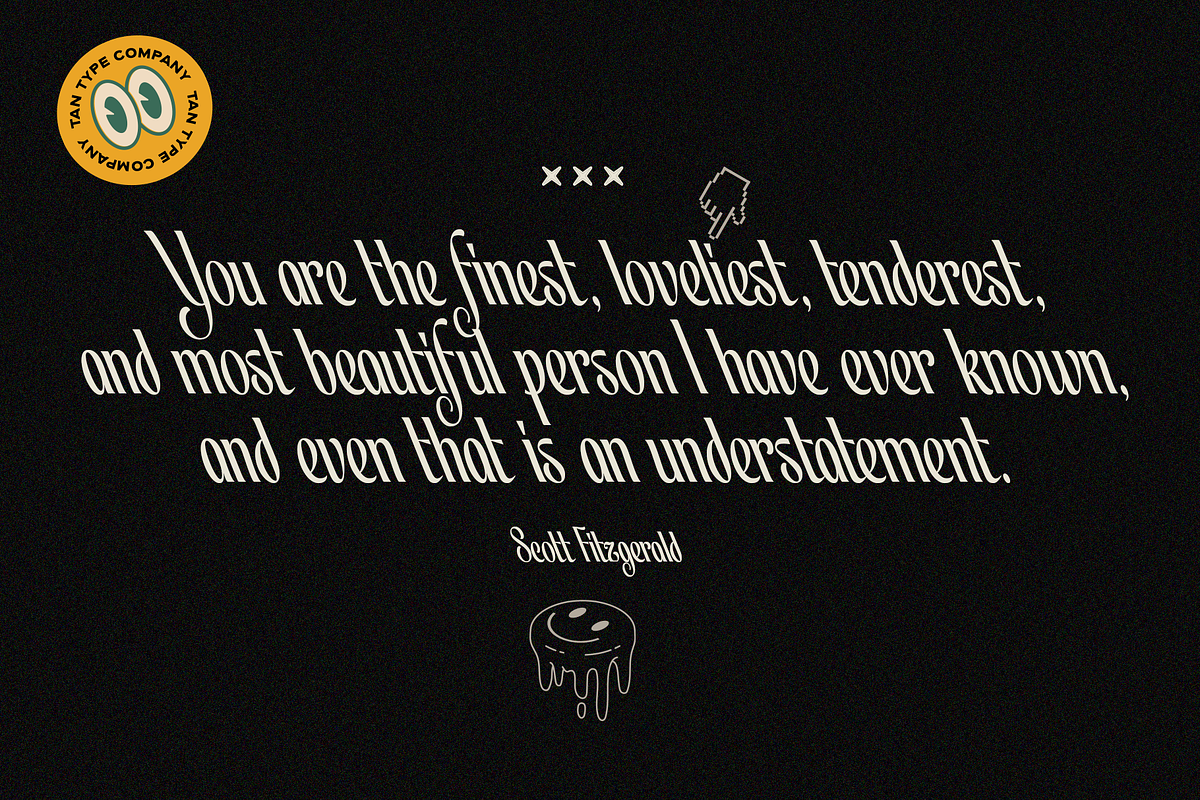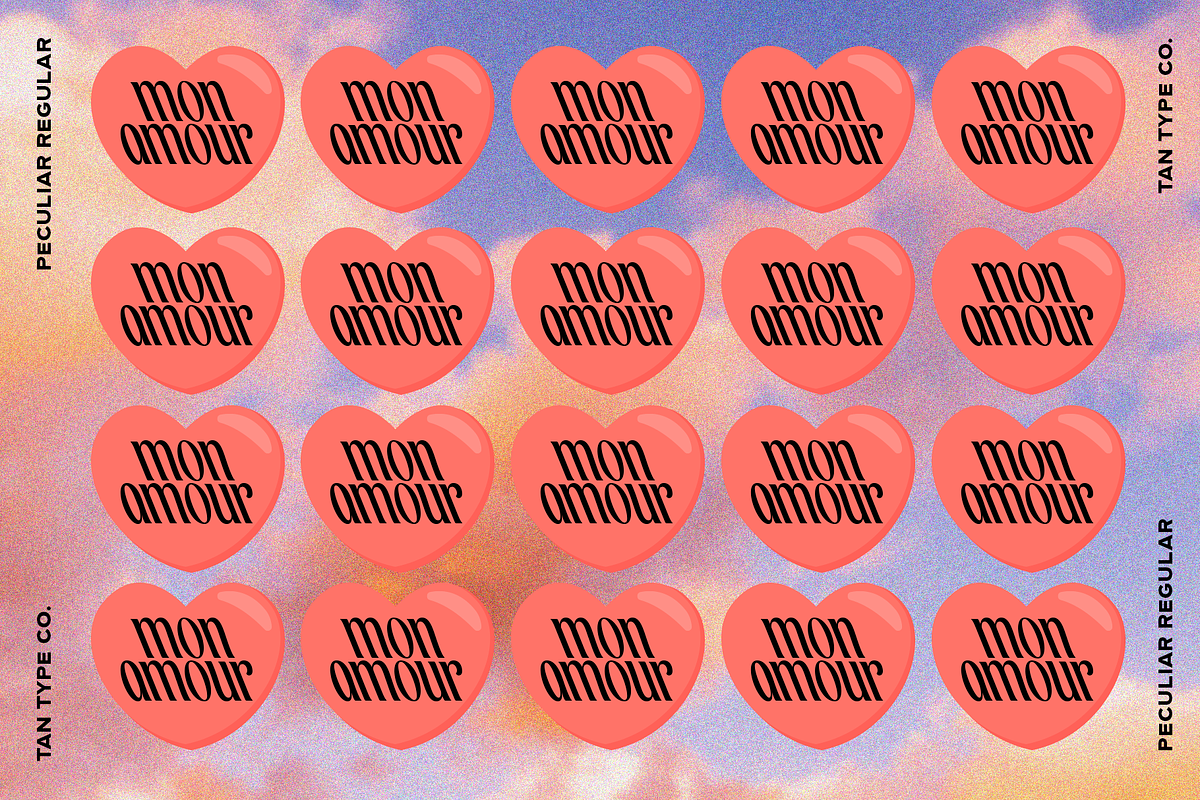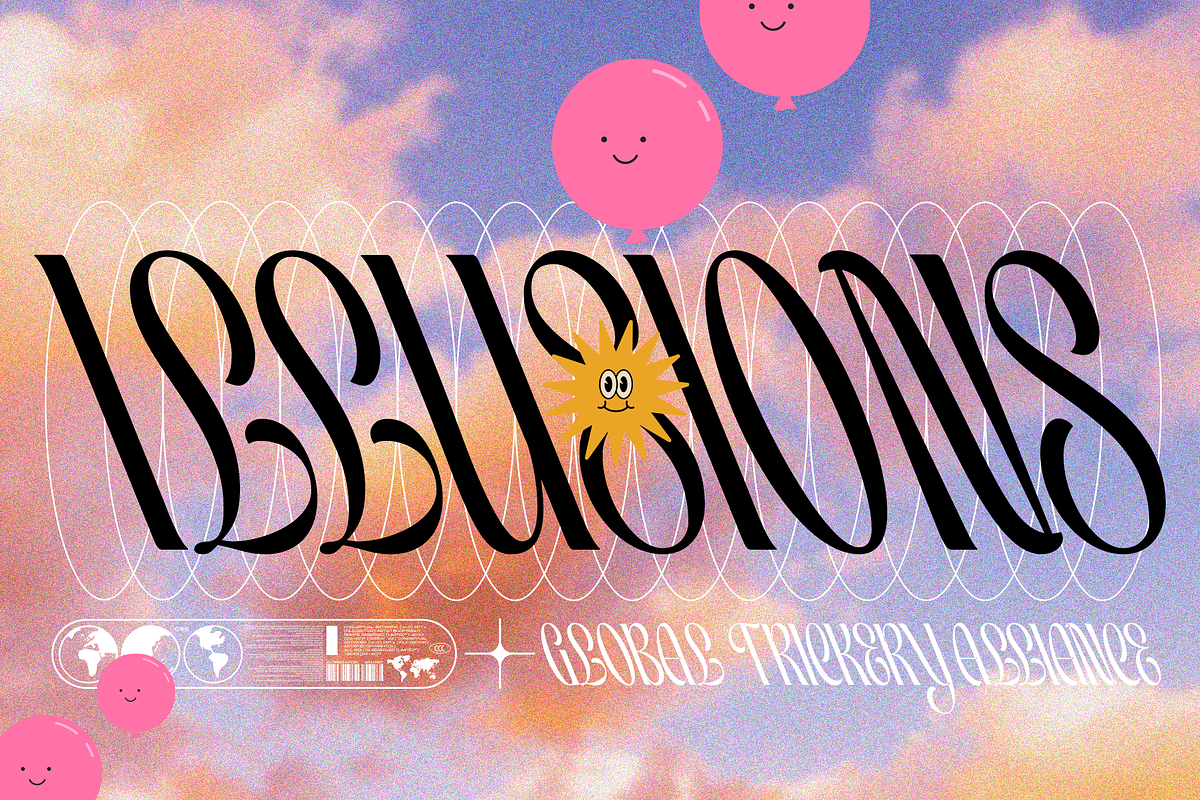
Tan Peculiar is a fun and quirky display font with a contemporary edge. It adds a touch of wonder to your designs. Works with most design software. It is also perfect for contemporary branding, social media, flyers, headlines, magazines, and more.